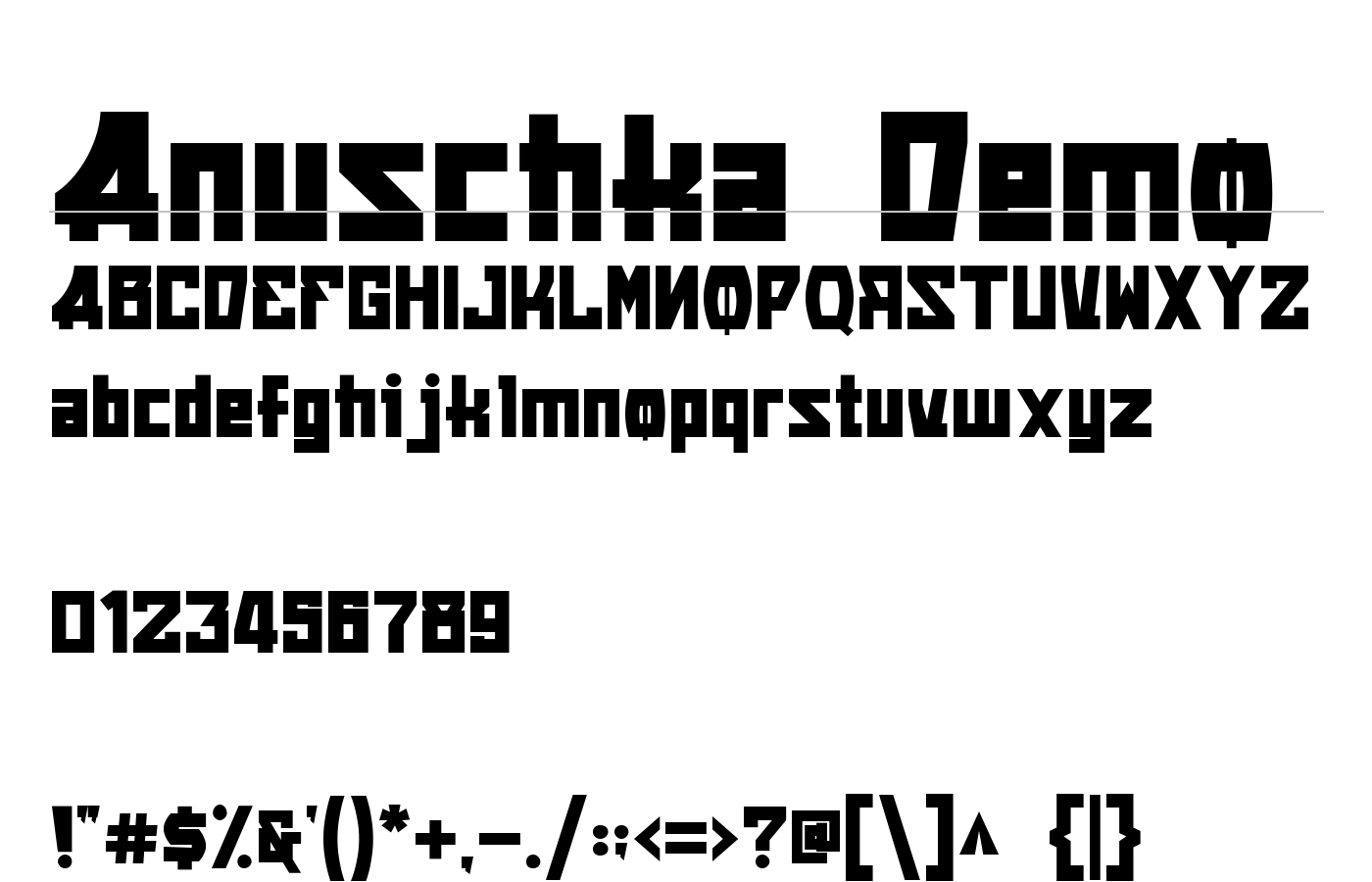
Anuschka is a bold, condensed sans serif font with a strong geometric and blocky design, featuring a high x-height and uniform stroke weight that creates a solid, impactful presence. Its sharp, almost industrial letterforms give it a modern yet somewhat rigid and assertive personality, making it ideal for headlines, logos, and designs seeking a powerful, urban edge. This font works best where a striking, confident statement is needed, especially in branding, posters, and digital media that benefit from a contemporary and attention-grabbing style.
Anuschka Font
About Anuschka Font